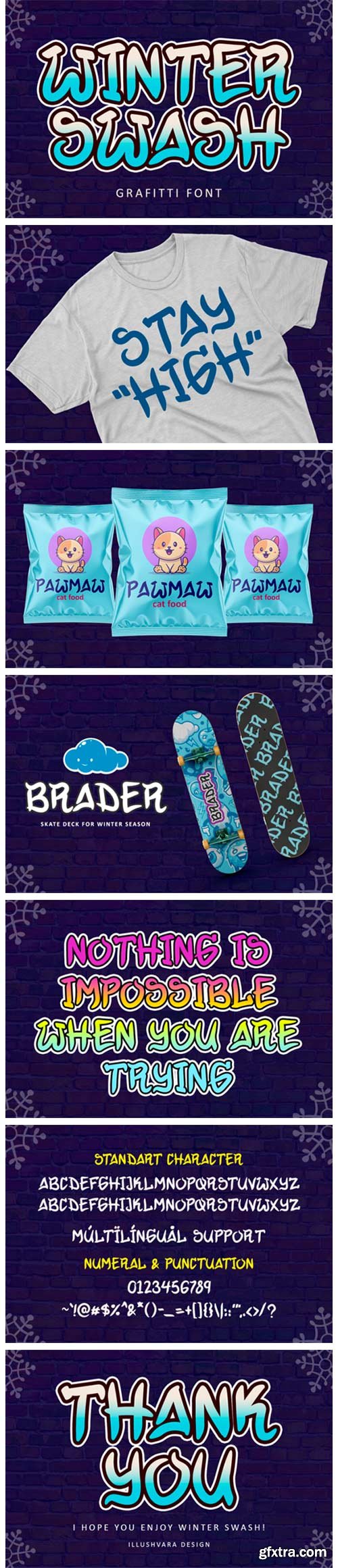
Winter Swash Font
Winter Swash is a fun display font, featuring an urban style. Fun and casual, this font is ideal for any design you wish to develop!